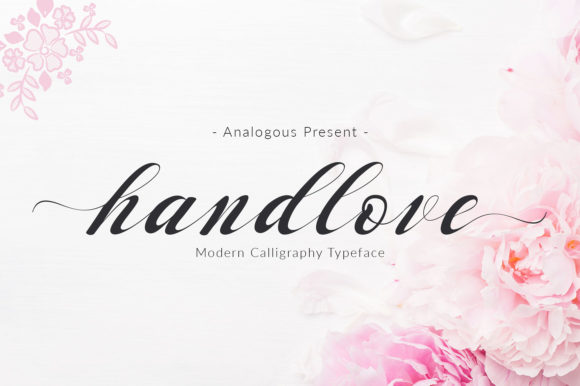
Immerse yourself in the enchanting world of Handlove, a captivating script font that will leave you spellbound. Each character dances across the page with a grace that is both timeless and modern, evoking the beauty of handwritten letters with a touch of contemporary flair. Handlove is a true masterpiece, a font that speaks to the heart with its delicate curves and elegant flourishes.
Handlove's undeniable charm lies in its versatility. Whether you're crafting elegant wedding invitations, creating eye-catching logos, or adding a personal touch to your social media posts, Handlove is the perfect choice. Its delicate lines and flowing script add a touch of sophistication to any project, while its readability ensures that your message is always clear and impactful.
With Handlove, you'll discover a font that captures the essence of romance and beauty. Its curves flow like a gentle river, guiding the eye across your words with effortless grace. Handlove is more than just a font; it's an expression of your creativity, a way to share your unique voice with the world.
Whether you're a seasoned designer or just starting your creative journey, Handlove will elevate your work to new heights. Its versatility knows no bounds, making it the perfect choice for a wide range of projects. From branding and marketing materials to social media graphics and personal correspondence, Handlove will transform your words into works of art.